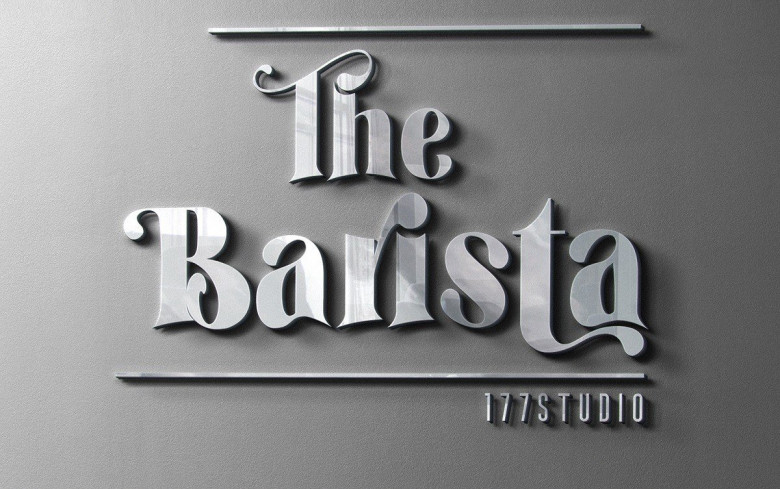
The Barista Modern Classic Serif Typeface
The Barista Font is an modern classic serif typeface. It features stylistic alternates, standard and discretionary ligatures, and swashes to add options and flair to your typography. The typeface has a unique blend of sophistication with it’s high contrast of thicks and thins and also playfulness with the distinct ball terminal characters.